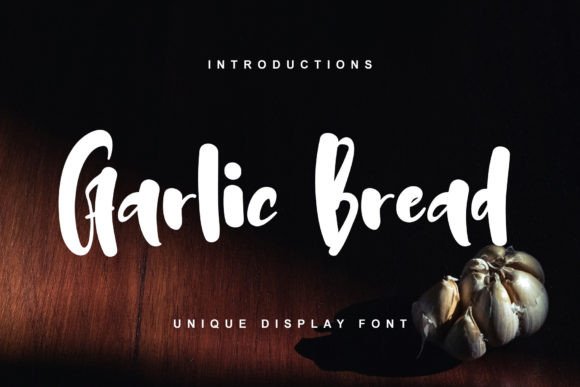
Introducing Garlic Bread Font: Elevate Your Designs with Timeless Elegance
In the world of typography, few fonts manage to strike a balance between classic sophistication and modern flair. Garlic Bread Font is one such exceptional typeface that brings together the best of both worlds, offering a stylish display font with a contemporary atmosphere and impeccable form. Inspired by timeless classic calligraphy, Garlic Bread Font is designed to add a touch of elegance and refinement to your projects.
The Inspiration Behind Garlic Bread Font
Garlic Bread Font draws its inspiration from the rich heritage of classic calligraphy, where the art of beautiful handwriting was elevated to new heights. The creators of Garlic Bread Font sought to capture the essence of this timeless art form and infuse it with a modern twist, making it suitable for a wide range of design applications. The result is a font that exudes sophistication, poise, and a deep sense of style.
Key Features of Garlic Bread Font
So, what makes Garlic Bread Font stand out from the crowd? Here are some of its key features:
- Contemporary Atmosphere: Despite its classic roots, Garlic Bread Font boasts a distinctly contemporary feel that makes it perfect for modern designs.
- Impeccable Form: The font’s design is characterized by impeccable form, ensuring that it looks great in any context.
- Balanced and Varied: Garlic Bread Font is carefully crafted to offer a balanced and varied look, making it suitable for a wide range of applications.
Design Applications of Garlic Bread Font
Garlic Bread Font is an incredibly versatile typeface that can be used in a variety of design applications, including:
- Branding: Add a touch of elegance to your brand’s identity with Garlic Bread Font.
- Advertising: Make your ads stand out with a font that commands attention and exudes sophistication.
- Packaging: Elevate your product packaging with a font that adds a touch of luxury and refinement.
- Digital Media: Use Garlic Bread Font to add a touch of class to your digital media, including websites, social media graphics, and more.
Why Choose Garlic Bread Font?
With so many fonts available, why should you choose Garlic Bread Font for your projects? Here are a few compelling reasons:
- Unique Style: Garlic Bread Font offers a unique style that sets it apart from more common typefaces.
- High Versatility: The font’s versatility makes it suitable for a wide range of design applications.
- Ease of Use: Garlic Bread Font is easy to use and can be integrated seamlessly into your design workflow.
Tips for Using Garlic Bread Font Effectively
To get the most out of Garlic Bread Font, here are a few tips to keep in mind:
- Pair it with Other Fonts: Experiment with pairing Garlic Bread Font with other fonts to create visually appealing combinations.
- Use it for Headlines: Garlic Bread Font is perfect for headlines and titles, where its elegant and sophisticated style can shine.
- Experiment with Colors: Don’t be afraid to experiment with different colors to find the perfect match for your design.
In conclusion, Garlic Bread Font is a stylish display font that brings a touch of timeless elegance to your designs. With its contemporary atmosphere, impeccable form, and balanced and varied style, it’s the perfect choice for designers looking to elevate their projects. Whether you’re working on branding, advertising, packaging, or digital media, Garlic Bread Font is sure to make a lasting impression.
Garlic Bread Font: The Perfect Choice for Your Next Project